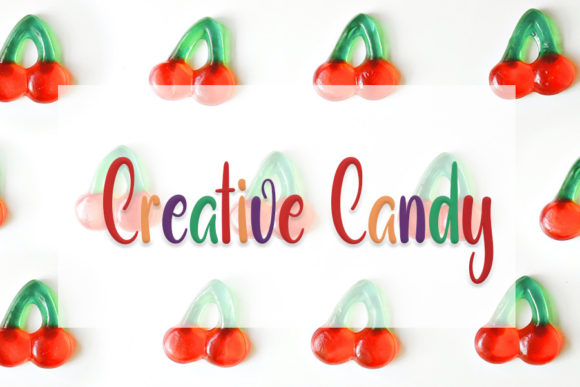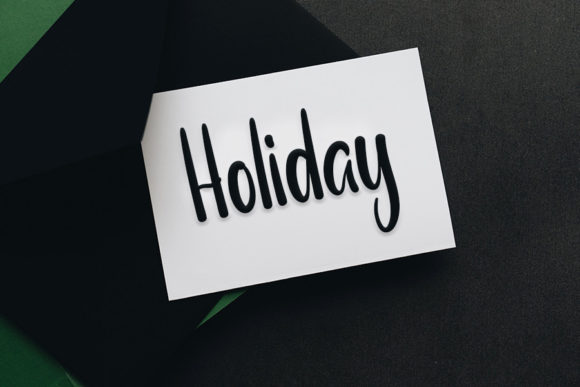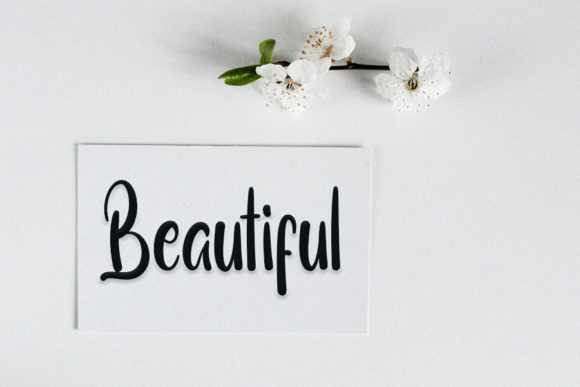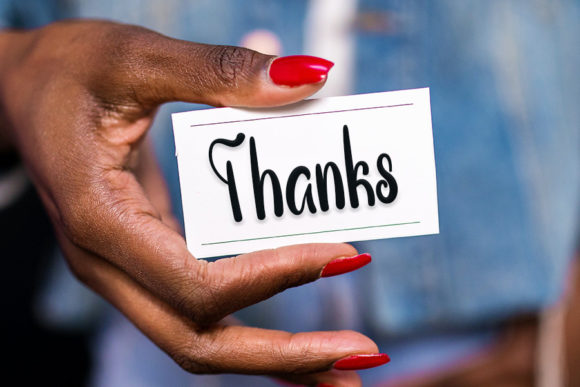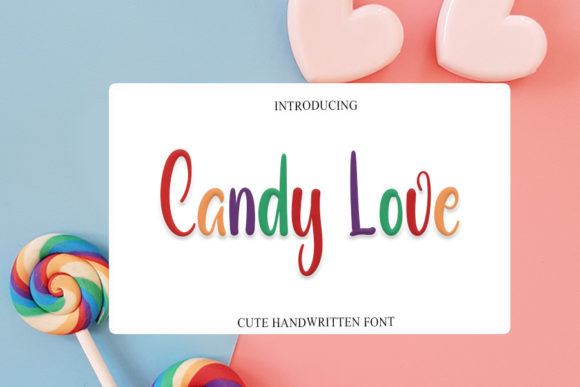
Candy Love Font: The Sweetest Addition to Your Design Collection
Are you a designer or crafter looking for a font that exudes warmth, playfulness, and a touch of sophistication? Look no further than the Candy Love Font! This casual handwritten font is carefully designed to become a true favorite, boasting a unique blend of classic calligraphic influences and modern freshness.
The Charm of Candy Love Font
Candy Love Font is a beautiful, hand-crafted typeface that is sure to capture the hearts of designers and crafters alike. Its carefully designed letters are infused with a sense of whimsy and romance, making it perfect for a wide range of creative projects. Whether you’re working on a wedding invitation, a branding campaign, or a DIY craft project, Candy Love Font is sure to add a touch of sweetness and charm.
Key Features of Candy Love Font
• Classy Calligraphic Influences: Candy Love Font boasts elegant, flowing lines that evoke the feeling of traditional calligraphy.
• Contemporary and Fresh: Despite its classic influences, Candy Love Font feels modern and fresh, making it perfect for designers and crafters who want to create something new and exciting.
• Casual and Handwritten: This font has a relaxed, handwritten feel that’s perfect for creating a sense of warmth and approachability.
• Versatile: Candy Love Font can be used for a wide range of creative projects, from digital designs to print materials.
What Makes Candy Love Font So Special?
So, what sets Candy Love Font apart from other fonts on the market? For starters, its unique blend of classic and modern elements makes it a true standout. The font’s careful attention to detail and hand-crafted feel also make it a joy to work with. Whether you’re a seasoned designer or a crafty DIY enthusiast, Candy Love Font is sure to become a favorite in your collection.
Using Candy Love Font in Your Designs
Candy Love Font is incredibly versatile, making it perfect for a wide range of design applications. Here are just a few ideas to get you started:
• Wedding Invitations: Add a touch of romance and whimsy to your wedding invitations with Candy Love Font.
• Branding Campaigns: Use Candy Love Font to create a playful, approachable brand identity that will resonate with your target audience.
• DIY Craft Projects: Add a personal touch to your DIY craft projects, such as handmade cards, gift tags, and scrapbooking pages.
• Digital Designs: Use Candy Love Font to create eye-catching digital designs, such as social media graphics, blog headers, and more.
Tips for Getting the Most Out of Candy Love Font
To get the most out of Candy Love Font, here are a few tips to keep in mind:
• Experiment with Different Sizes: Candy Love Font looks great in a variety of sizes, so don’t be afraid to experiment and find the perfect size for your project.
• Play with Color: This font looks great in a range of colors, so try pairing it with different hues and shades to add visual interest.
• Mix and Match: Combine Candy Love Font with other fonts and design elements to create a unique and eye-catching design.
In conclusion, Candy Love Font is a sweet and charming addition to any design collection. With its unique blend of classic calligraphic influences and modern freshness, this casual handwritten font is sure to become a favorite among designers and crafters. Whether you’re working on a wedding invitation, a branding campaign, or a DIY craft project, Candy Love Font is the perfect choice for adding a touch of warmth, playfulness, and sophistication.